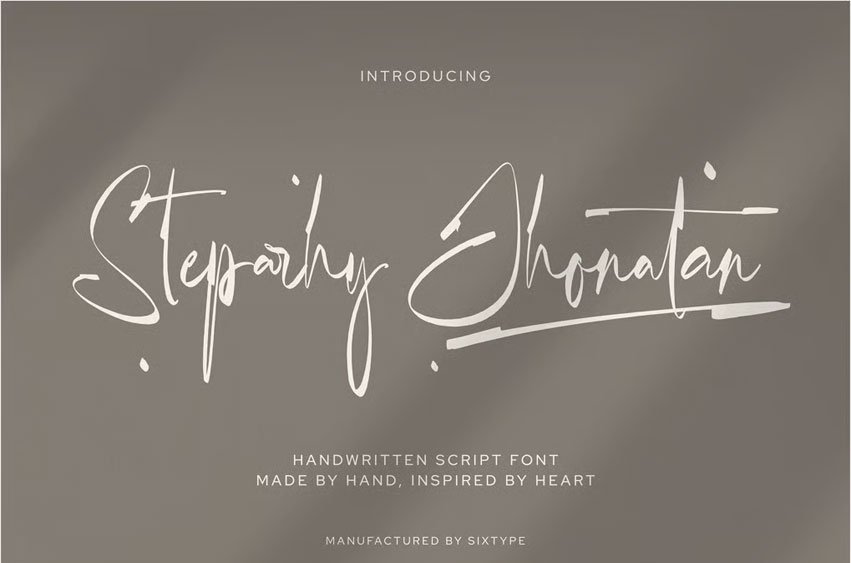
Steparhy Jhonatan Font is a handwritten signature script font that blends elegance with authenticity. With its tall letterforms and expressive strokes, this font is perfect for personal branding, wedding invitations, luxury packaging, and any project that craves a sophisticated, handcrafted look.
Crafted with care and inspired by the rhythm of real handwriting, Steparhy Jhonatan gives your text a refined, personal feeling—ideal for designers seeking elegance with emotional impact.